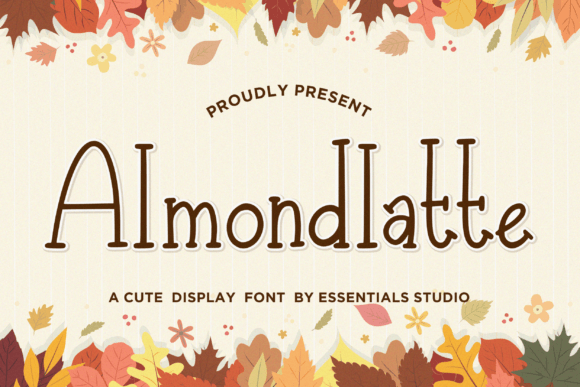
Immerse yourself in the realm of typography with Almondlatte, a captivating serif font family that captivates hearts with its timeless elegance and charismatic charm. Crafted by the talented artisans at Essentials Studio, Almondlatte exudes a personality that dances between playful and sophisticated, making it the perfect companion for any design endeavor.
With Almondlatte as your creative ally, unleash your imagination and craft captivating product packaging that draws eyes and leaves a lasting impression. Elevate your branding projects with a touch of sophistication and uniqueness, leaving a lasting imprint on the minds of your audience. Create engaging social media posts that pop off the screen, capturing attention and sparking conversations. And when it comes to weddings and special occasions, Almondlatte adds a touch of timeless charm, transforming your invitations, menus, and signage into exquisite works of art.
Beyond its versatility, Almondlatte possesses an innate ability to elevate the ordinary into the extraordinary. Its graceful curves and delicate serifs add a touch of magic to any project, making words dance with a life of their own. Whether adorning the pages of a magazine, capturing attention on social media, or gracing the backdrop of a wedding celebration, Almondlatte transforms the mundane into something truly special.
So, embrace the beauty of Almondlatte and embark on a creative journey where words come alive and designs flourish. Let your imagination soar and let Almondlatte be your guide, leading you to typographic masterpieces that leave an indelible mark on the hearts of all who behold them.